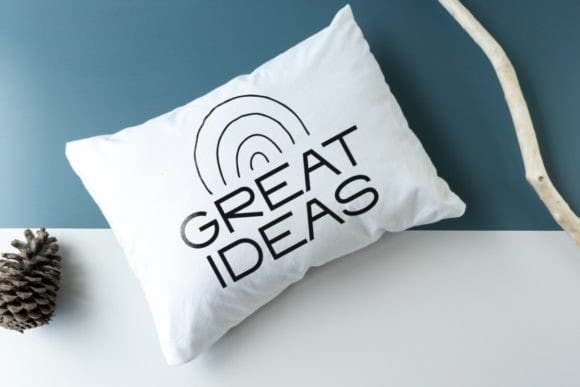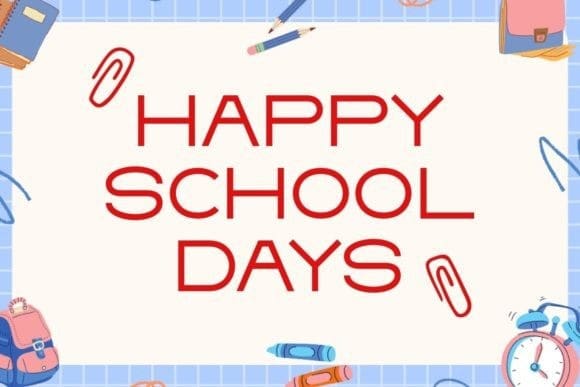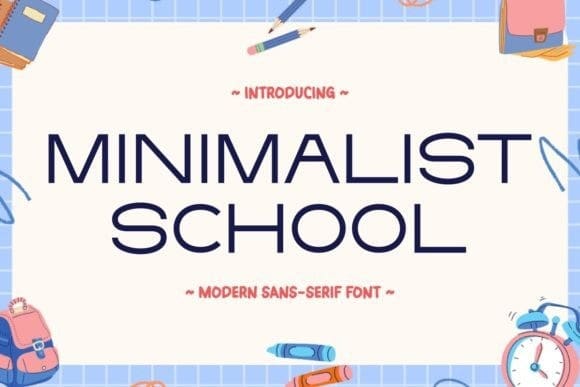
Minimalist School Font
Minimalist School Font is a modern sans-serif font meticulously crafted for schools and young learners. MinimalistSchool combines clean lines with a touch of modern simplicity with old school style and simple vintage typeface.